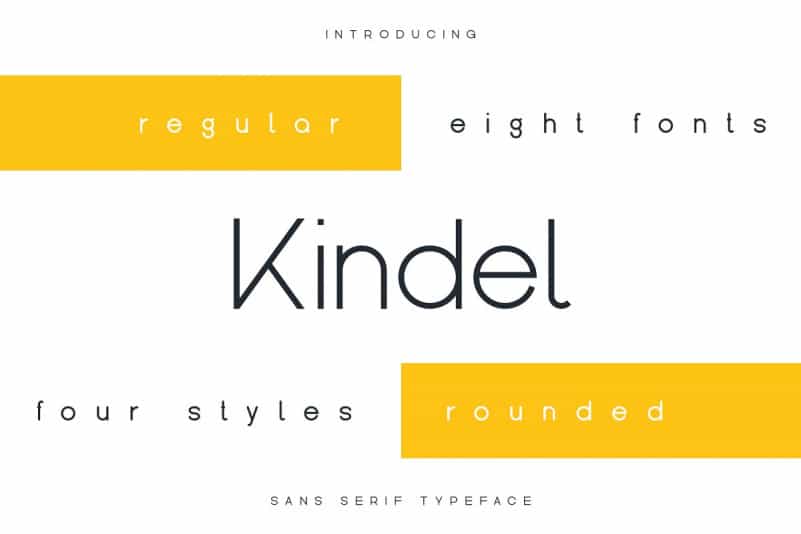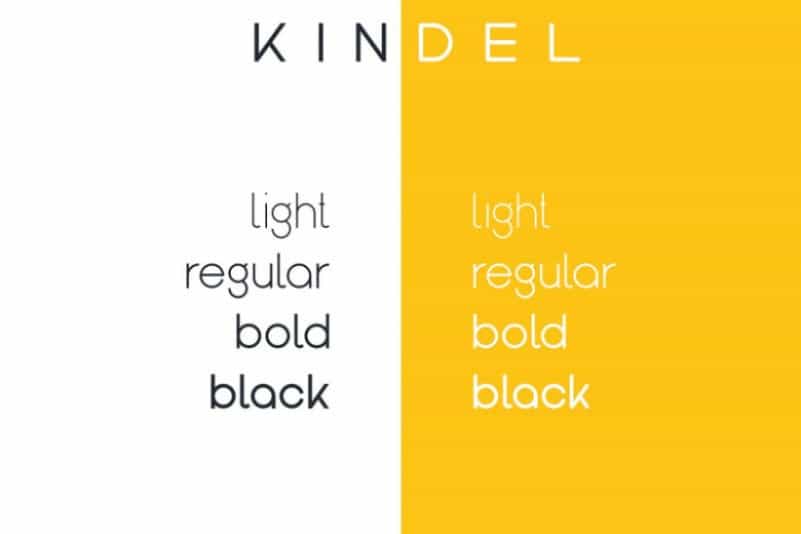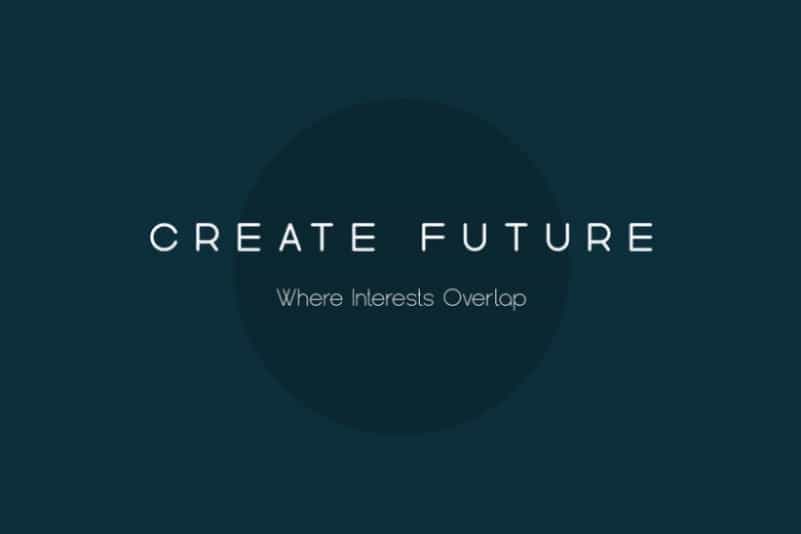
This free font is called Kindel Font and was created and uploaded on the internet by VPcreativeshop. Its a modern clean font with a total of 8 styles and it supports multiple languages. It is perfect, mostly because it’s great for both large lettering and, as I discovered, small lettering.